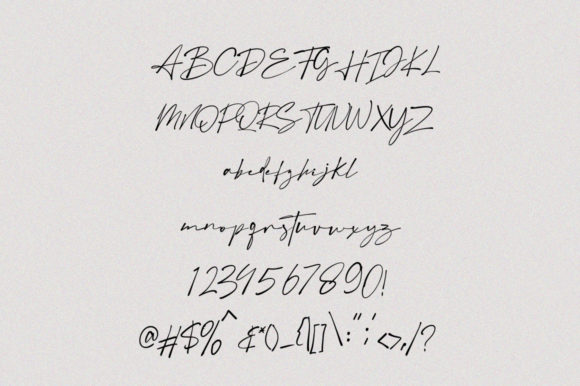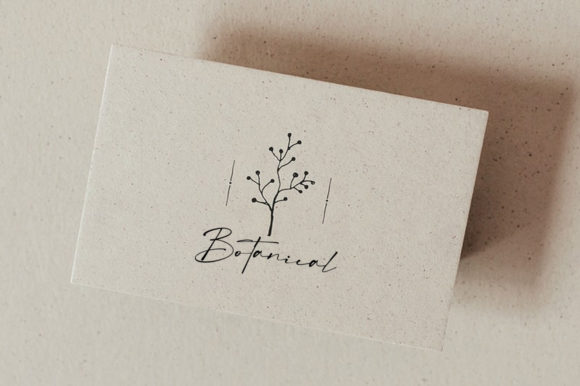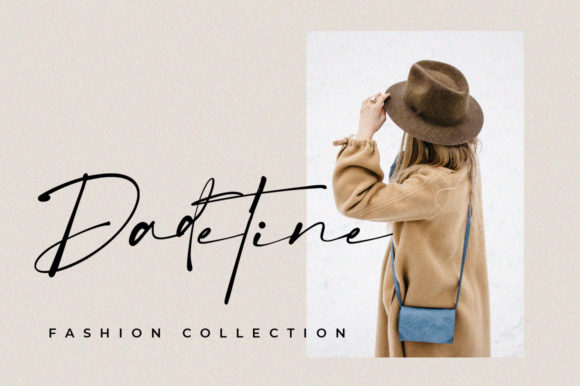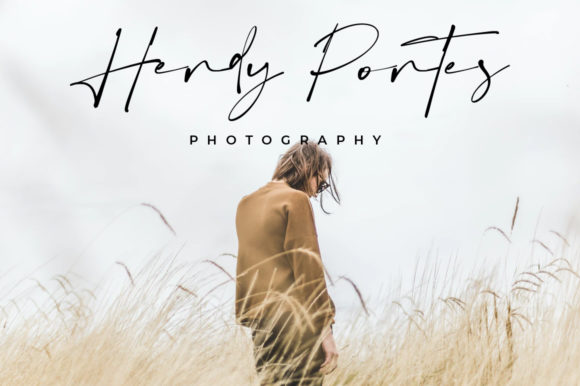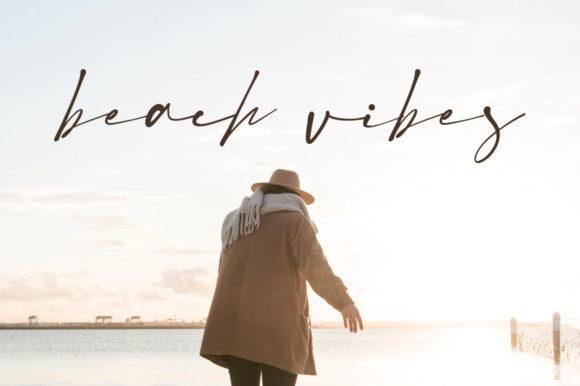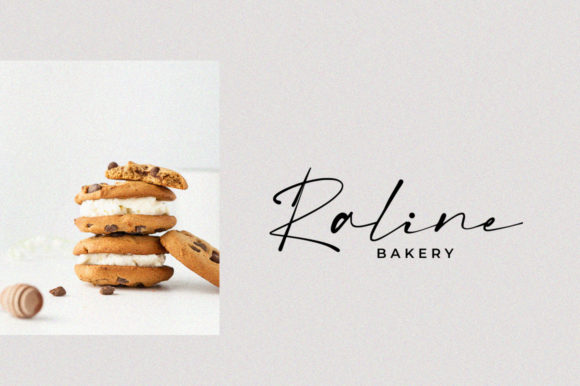
Austin Font: Elevate Your Designs with Elegance and Timeless Style
Austin Font is a beautiful, flowing handwritten font that has captured the hearts of designers and crafters alike. With its elegant touch and distinct style, it’s the perfect addition to any project. In this article, we’ll dive into the world of Austin Font, exploring its unique features, uses, and benefits. Whether you’re a seasoned designer or a crafting enthusiast, you’ll fall in love with the sophistication and versatility of Austin Font.
The Elegance of Austin Font
Austin Font boasts an incredibly distinct and timeless style that sets it apart from other fonts. Its elegant touch is perfect for creating spectacular designs that exude sophistication and refinement. The font’s flowing lines and curves create a sense of movement and fluidity, making it ideal for projects that require a touch of luxury and glamour.
What Makes Austin Font Special?
So, what makes Austin Font so special? Here are a few key features that set it apart:
- Handwritten style: Austin Font has a beautiful, handwritten style that adds a personal touch to any project.
- Elegant touch: The font’s elegant lines and curves create a sophisticated and refined look that’s perfect for high-end designs.
- Timeless style: Austin Font’s classic style ensures that it will never go out of fashion, making it a great investment for designers and crafters.
- Versatility: The font is versatile and can be used for a wide range of projects, from wedding invitations to branding and packaging.
Uses for Austin Font
Austin Font is perfect for a variety of projects, including:
- Wedding invitations and stationery: The font’s elegant style makes it perfect for wedding invitations, save-the-date cards, and other stationery.
- Branding and packaging: Austin Font is ideal for creating luxurious brand identities and packaging designs that exude sophistication.
- Signage and display: The font’s bold and elegant style makes it perfect for signage and display projects, such as store signs and banners.
- Digital design: Austin Font can be used for digital designs, such as website headers, social media graphics, and email newsletters.
Tips for Using Austin Font
Here are a few tips for getting the most out of Austin Font:
- Pair with complementary fonts: Pair Austin Font with complementary fonts to create a unique and visually appealing design.
- Experiment with colors: The font looks great in a range of colors, so don’t be afraid to experiment and find the perfect hue for your design.
- Use for headlines and titles: Austin Font is perfect for headlines and titles, where its elegant style can really shine.
Austin Font is a beautiful, elegant handwritten font that’s perfect for designers and crafters looking to add a touch of sophistication to their projects. With its timeless style, versatility, and flowing lines, it’s the perfect addition to any design. Whether you’re creating wedding invitations, branding and packaging, or digital designs, Austin Font is sure to impress. So why not fall in love with Austin Font and elevate your designs to the next level?
Get Creative with Austin Font
Ready to get creative with Austin Font? Here are some inspiring ideas to get you started:
- Create a stunning wedding invitation: Use Austin Font to create a beautiful wedding invitation that sets the tone for the big day.
- Design a luxurious brand identity: Use the font to create a sophisticated brand identity that exudes elegance and refinement.
- Make a statement with signage: Use Austin Font to create eye-catching signage that grabs attention and makes a lasting impression.